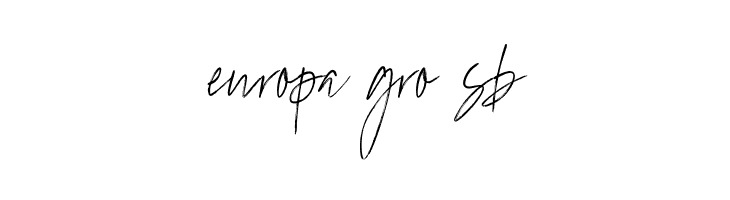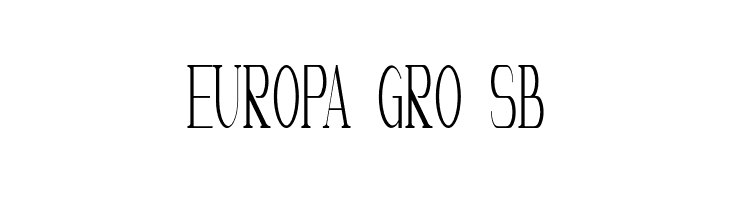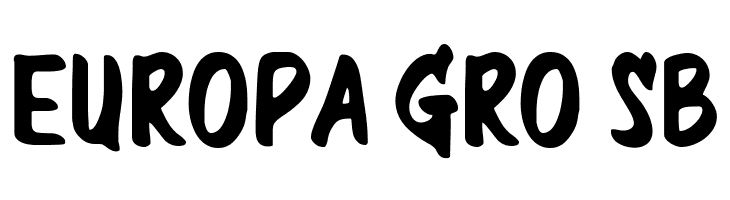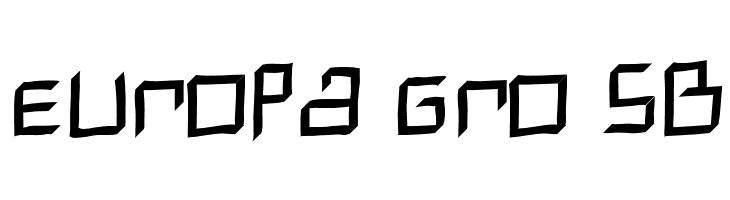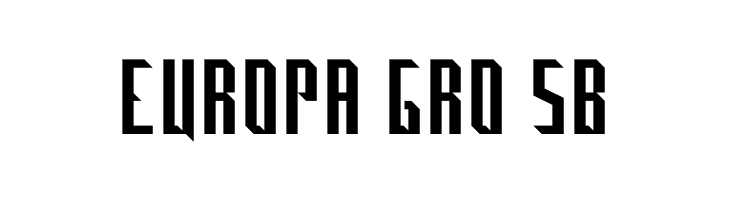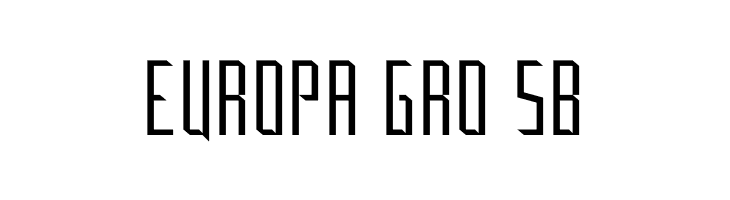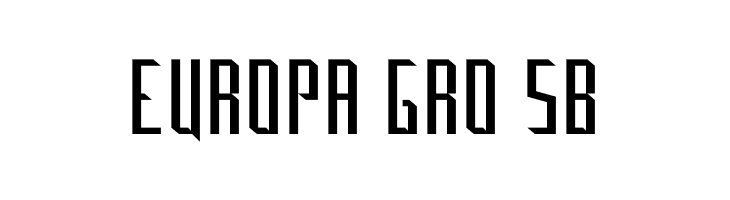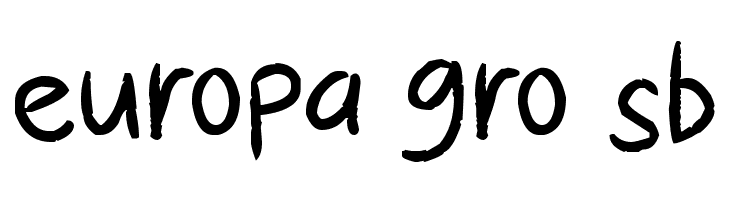
A lively, handwritten script with dynamic strokes and a personal touch.
A modern serif font with tall, narrow letterforms and high contrast strokes.
A futuristic, angular font with sharp geometric lines.
A bold, angular font with a futuristic and edgy design.
A playful, handwritten font with a casual and organic style.
A bold, playful font with a hand-drawn, casual style.
A bold, geometric font with sharp angles and a modern style.
A bold, geometric font with sharp angles and a modern aesthetic.
A geometric and angular font with a modern, sleek design.
A fluid, elegant handwritten font with a dynamic and personal touch.